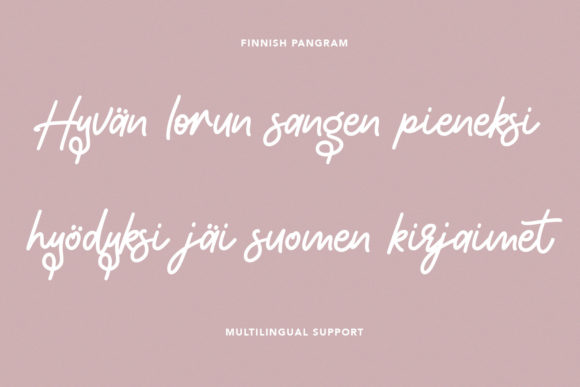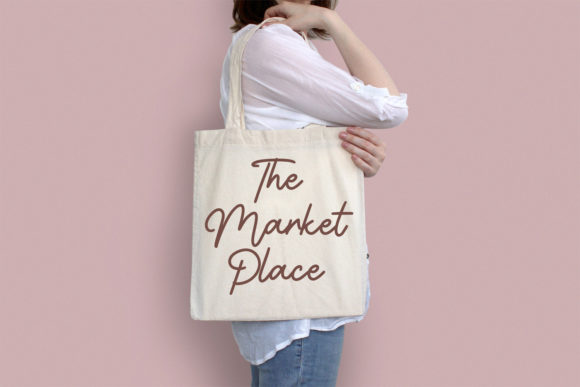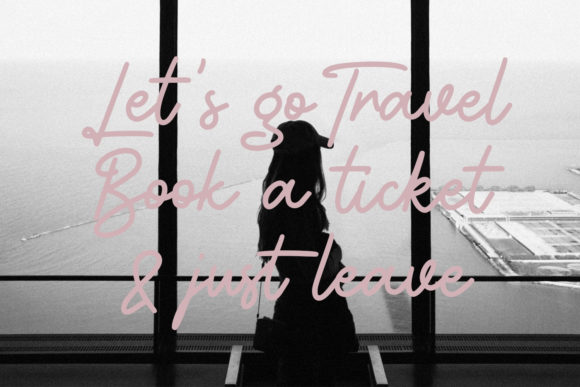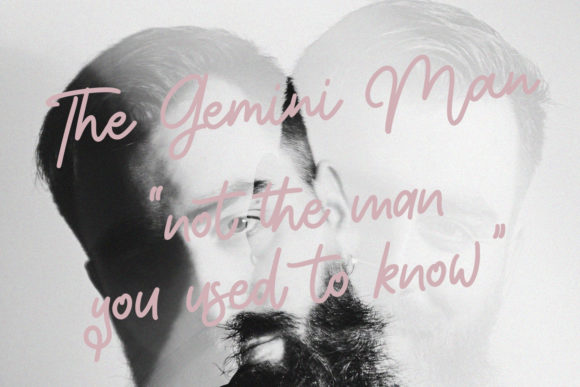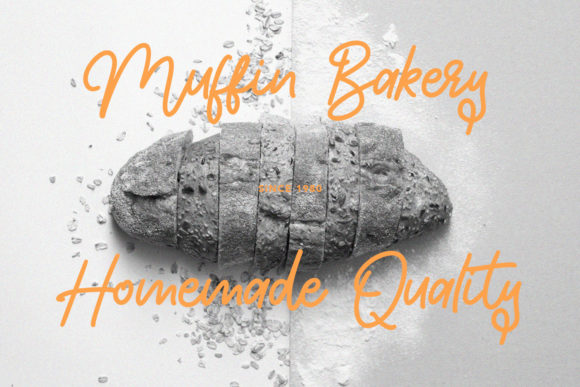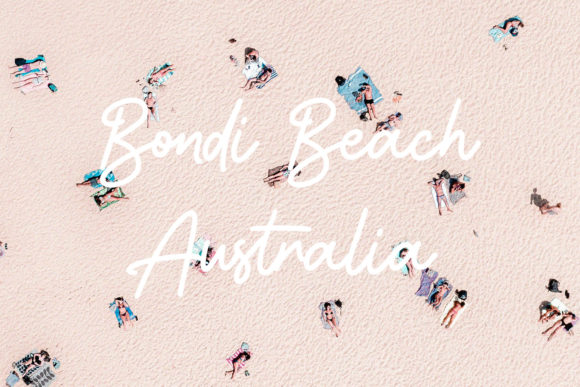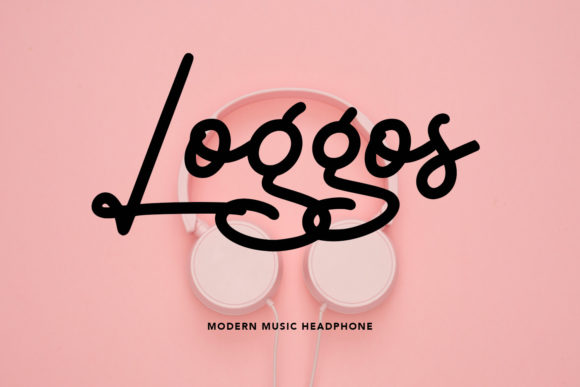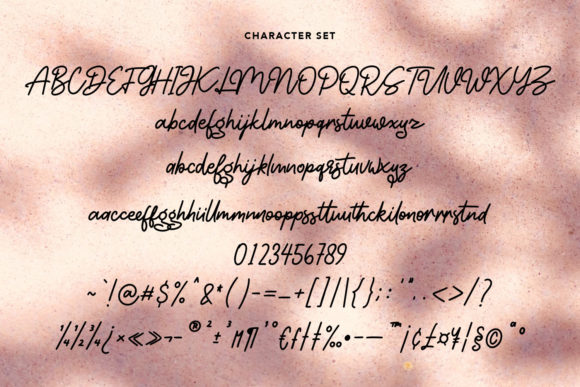
Blammingst Font
About Blammingst Font
Blammingst is an elegant script font with a contemporary atmosphere and impeccable form, inspired by timeless classic calligraphy. Not too thin and not too thick, balanced and varied, this font was designed to enhance the beauty of your projects.